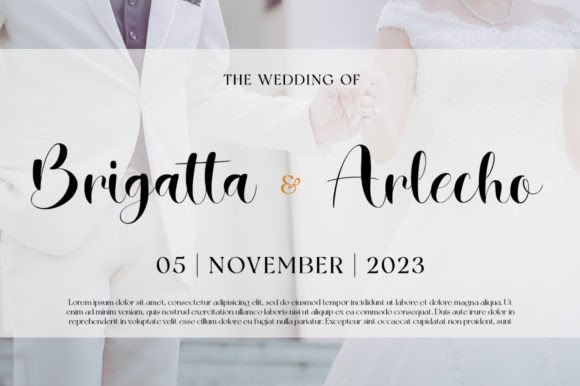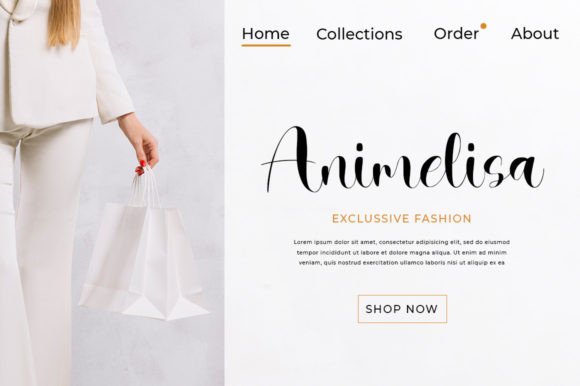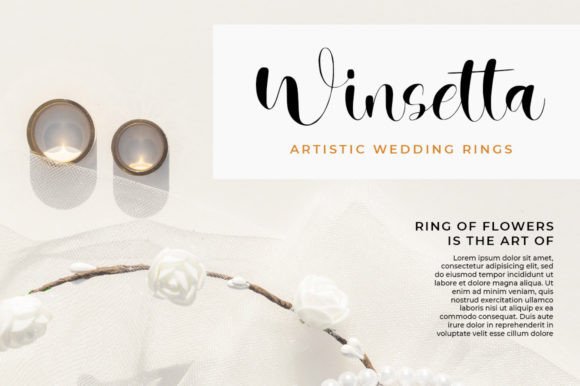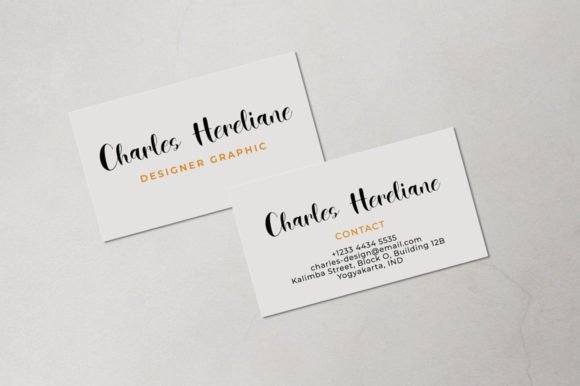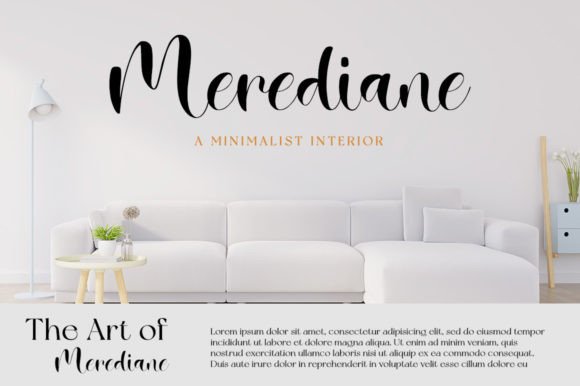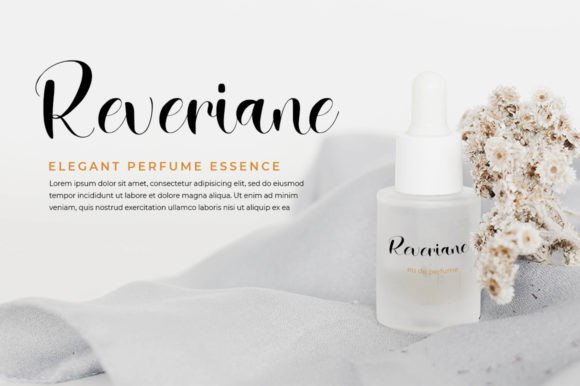
Introduction to Orechanes Font
As designers, we’ve all had that moment when the perfect font makes all the difference in a project. It’s like the missing piece to a puzzle, and suddenly everything falls into place. For me, that moment came when I stumbled upon the enchanting Orechanes Font. Its unique, handwritten feel is like a breath of fresh air in the world of typography, and I couldn’t wait to dive in and explore its possibilities.
Whether you’re a seasoned designer or just starting out, the Orechanes Font is a valuable resource to have in your toolkit. With its high-quality design and versatility, it’s perfect for everything from greeting cards to headlines. And the best part? It’s available for a free download, complete with a transparent background, making it easy to integrate into any creative project.
- Features a unique and stylish design, perfect for adding a touch of elegance to any creative project.
Honest Review: Orechanes Font
I recently came across the Orechanes Font, a high-quality design resource that caught my attention. This free download has been making waves in the design community, and I’m here to share my honest thoughts on it.
- Unique and creative design: The Orechanes Font boasts a distinctive, hand-drawn feel that adds a touch of personality to any project.
- Transparent background: This feature allows designers to easily place the font on any background, giving them complete control over the design process.
- Perfect for creative projects: Whether it’s a logo, brochure, or poster, the Orechanes Font is ideal for any project that requires a touch of whimsy and charm.
- Limited font styles: The Orechanes Font only comes in a single style, which may limit its versatility for designers who prefer more options.
- Not suitable for formal projects: Due to its playful and informal design, the Orechanes Font may not be the best choice for formal or professional projects.
Overall, the Orechanes Font is a great addition to any designer’s toolkit. While it may have some limitations, its unique design and transparent background make it a valuable resource for creative projects. If you’re looking for a high-quality, free font that adds a touch of personality to your designs, the Orechanes Font is definitely worth checking out.
Common Use Cases for Orechanes Font
Orechanes Font is perfect for various creative projects, including:
1. Social media graphics
2. Business cards
3. Brochures
4. Posters